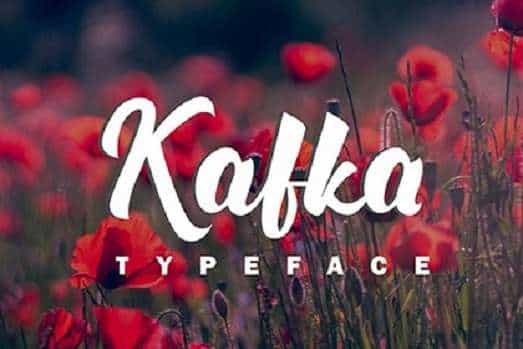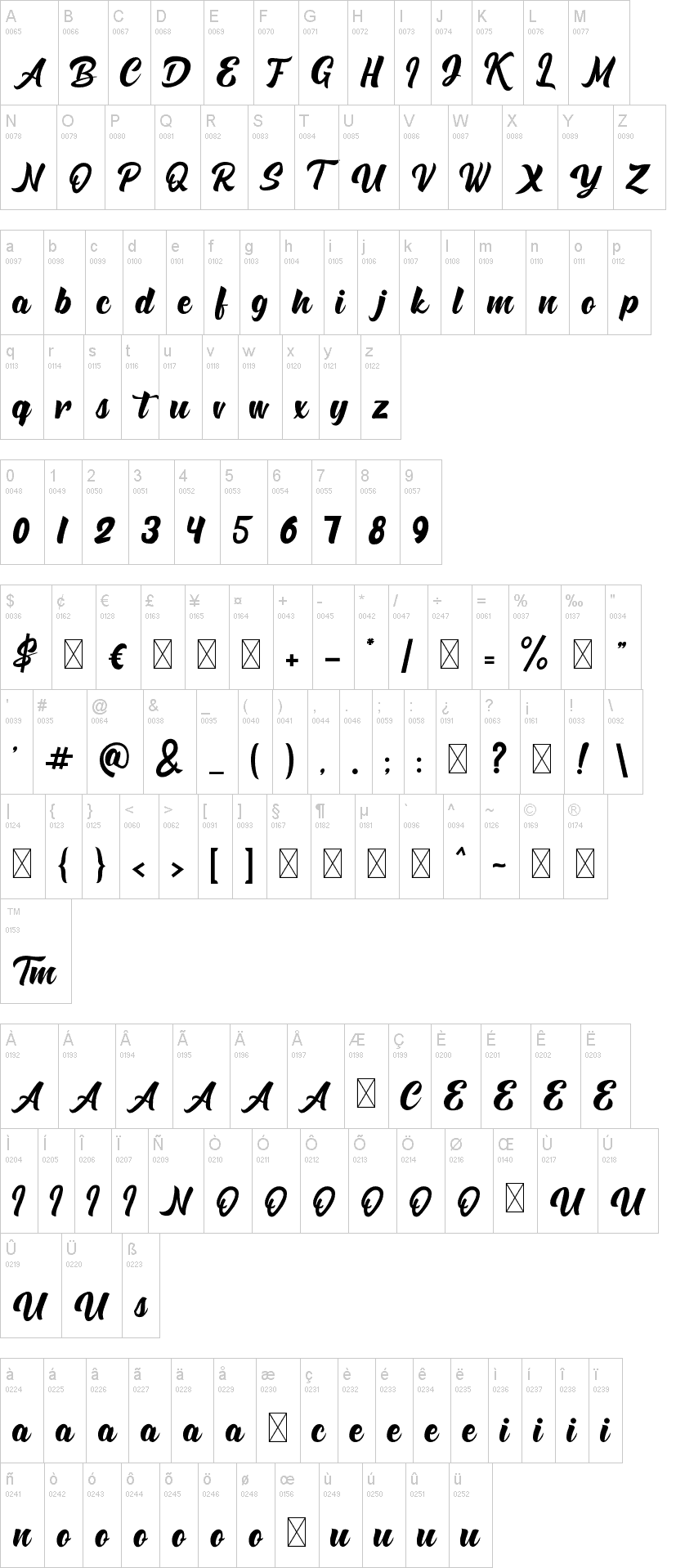
Discover Kafka Font, part of the Calligraphy collection—a versatile and unique font perfect for adding a personal touch to your projects. Download it for free and enjoy crafting designs with style, from invitations to social media posts. This font is available exclusively for personal use, giving you the freedom to create without limits. Unlock your creativity with Kafka Font today!
Kafka is a high quality Calligraphy font that is designed by mhdafifersya and is available for free download and personal use. The free version provides all uppercase and lowercase letters and a few special characters too.